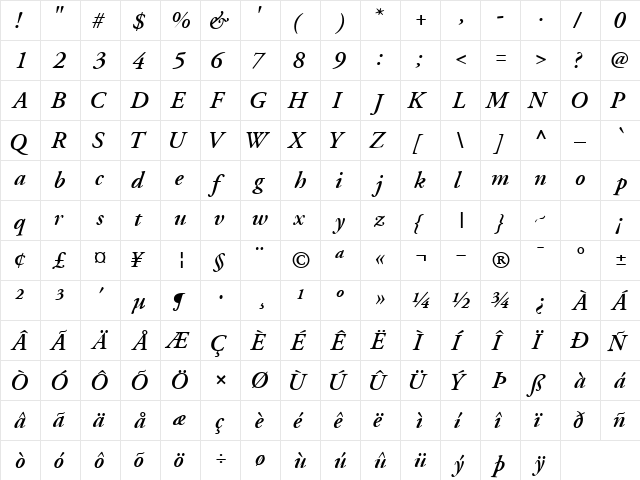
GaramondSSK Bold Italic Font Preview
Design Context for GaramondSSK Typeface
GaramondSSK takes a measured approach to typography — its balanced proportions and neutral character make it a reliable workhorse for both digital and print work. Its italic angle brings a sense of urgency and motion to the letterforms. The heavy weight commands attention and anchors typographic hierarchies.
Pro Tip: Try GaramondSSK for annotation and caption copy alongside an upright companion — the contrast in angle creates a dynamic but ordered typographic system.